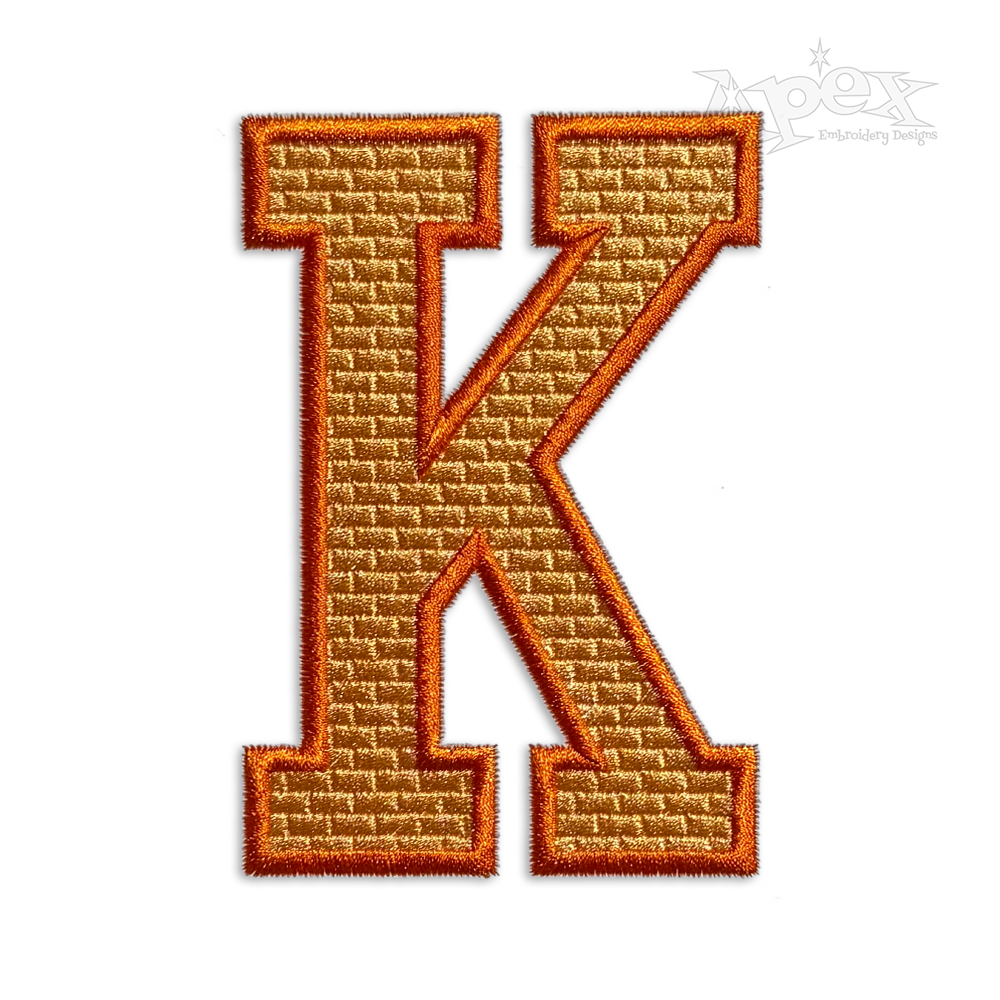
Kansas Block Applique Embroidery Font
There is an undeniable energy in the roar of a stadium crowd and the timeless prestige of collegiate athletics, an atmosphere built on bold geometry and unapologetic pride. When digitizing the Kansas Block Applique Embroidery Font, we wanted to capture that high-octane sporting heritage and translate it into a masterclass of tactile machine embroidery. Designed to turn vibrant twills, crisp linens, and team jerseys into statement pieces, this typeface balances authoritative collegiate architecture with a plush, satin-framed applique finish that brings game-day personalization to life with athletic majesty.
Project Ideas for Kansas Block Applique Embroidery Font
- Oversized Stadium Sweatshirts: Layer collegiate tackle twill onto thick fleece crewnecks for authentic, varsity-level athletic gear.
- Custom Tailgate Blankets: Embroider bold family initials or team names across heavy wool and sherpa-lined game-day throws.
- Varsity & Bomber Jackets: Create striking center-back numerals and player names on satin, wool, or leather jacket panels.
- Heavyweight Canvas Duffle Bags: Personalize weekend travel bags and athletic gear totes with rugged, standout applique letters.
- Youth League Keepsakes: Stitch bold uniform numbers and graduation milestone dates onto heirloom memory quilts and banner pennants.
Because of the commanding proportions of this block alphabet, careful canvas positioning elevates the final result:
- Center Chest Arch: Group lettering horizontally or gently arched across the breastplate of hoodies and athletic pullovers.
- Full Center-Back: Use the massive 6-inch or 8-inch scales for show-stopping single-letter monograms or two-digit jersey numbers across jacket backs.
- Vertical Sleeve & Leg Alignment: Arrange numerals vertically down sweatpants legs or along forearm panels for modern streetwear flair.
- Diagonal Canvas Corner: Anchor initials diagonally across heavy utility bags and structured stadium tote pockets for high-visibility graphic punch.
Kansas Block Applique Embroidery Font Craft & Letterform Details
True athletic block lettering demands absolute structural integrity. Each letterform is digitized with intentional geometry—sharp chamfered corners, precise 90-degree internal angles, and balanced negative spaces that give every character commanding presence on heavy fabrics. We built this collection using a proven three-step applique stitch sequence: a featherlight placement guide, an ultra-precise cut-line tack-down, and a lavish, dense satin stitch capping border designed with generous compensation to fully seal raw fabric edges. Corners are corner-turned with mitered satin flow, preventing thread buildup while ensuring clean, razor-sharp points that withstand heavy wear, laundering, and decades of spirited celebration.